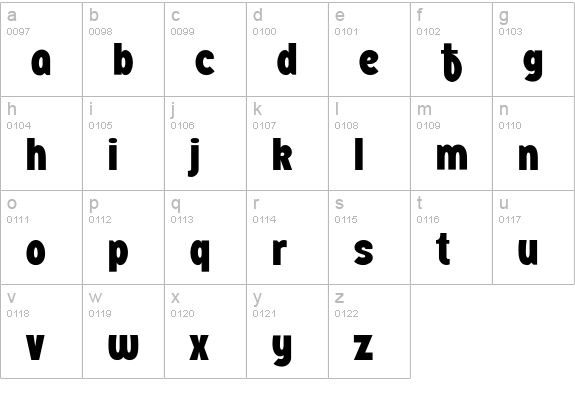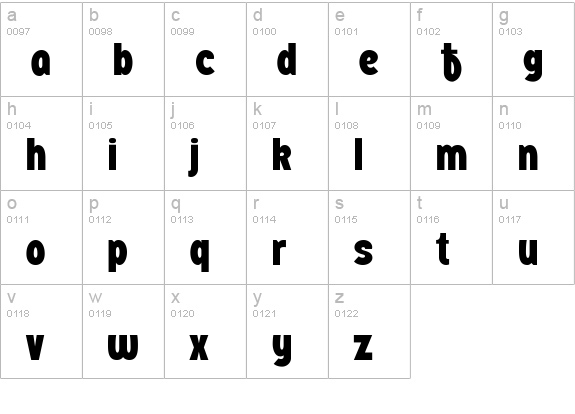
Sister-Black is a maximum-weight, dramatic variant in the Sister typeface family \xE2\x80\x94 well suited to maximum-impact headlines, posters, and packaging.
Introducing Sister-Black, a stunning font that effortlessly combines elegance with a touch of mystery. This captivating typeface is perfect for adding a bold and distinctive edge to your designs. With its sleek and sophisticated appearance, Sister-Black is sure to make a lasting impression. Featuring clean lines and sharp angles, this font exudes confidence and modernity. Each letter is meticulously crafted, ensuring a polished and professional look. Sister-Black is versatile and can be used for a wide range of projects, from logos and branding to headlines and editorial layouts. But what sets Sister-Black apart is not just its aesthetic appeal, but also its accessibility. This remarkable font is freely available to download at FontsMarket.com. Yes, you read that right - it's completely free! Now, you can elevate your designs without breaking the bank. Whether you're a professional designer or a creative enthusiast, Sister-Black is the perfect addition to your font collection. Its versatility, elegance, and affordability make it a must-have for anyone looking to make a statement with their typography. So, why wait? Don't miss out on this incredible opportunity to enhance your designs with Sister-Black. Head over to FontsMarket.com now and download this sensational font for free. Unleash your creativity and let Sister-Black bring your designs to life.